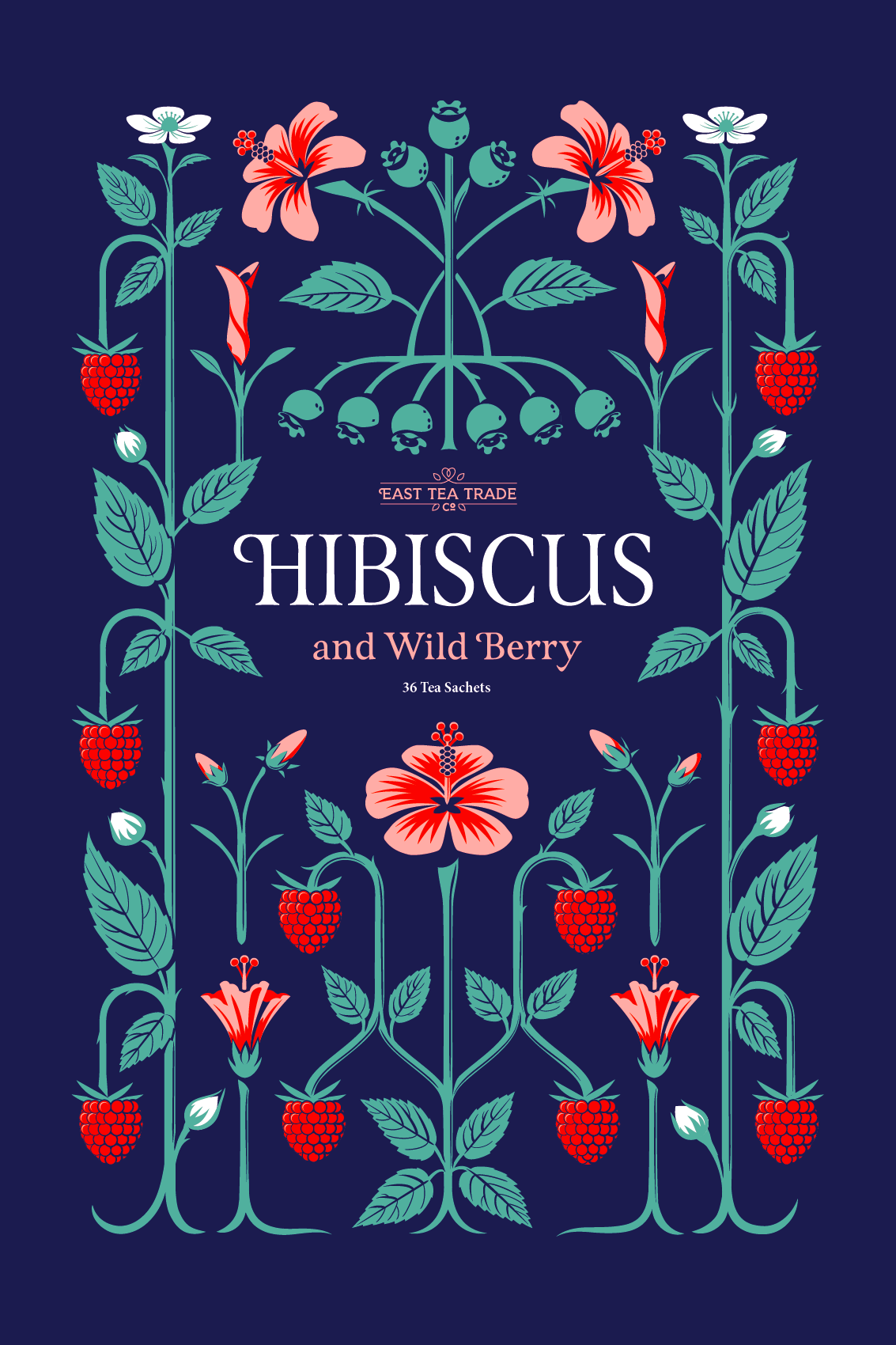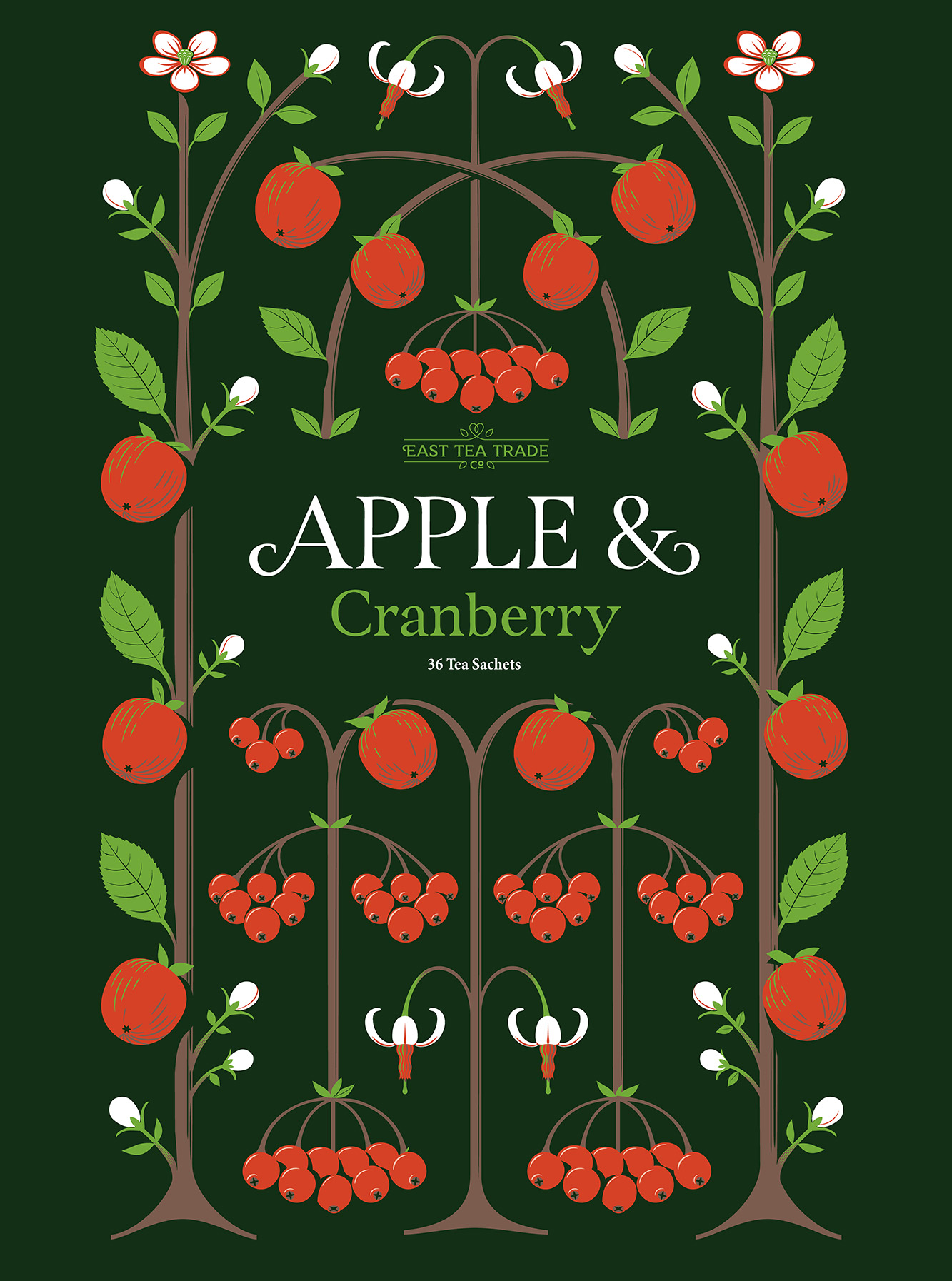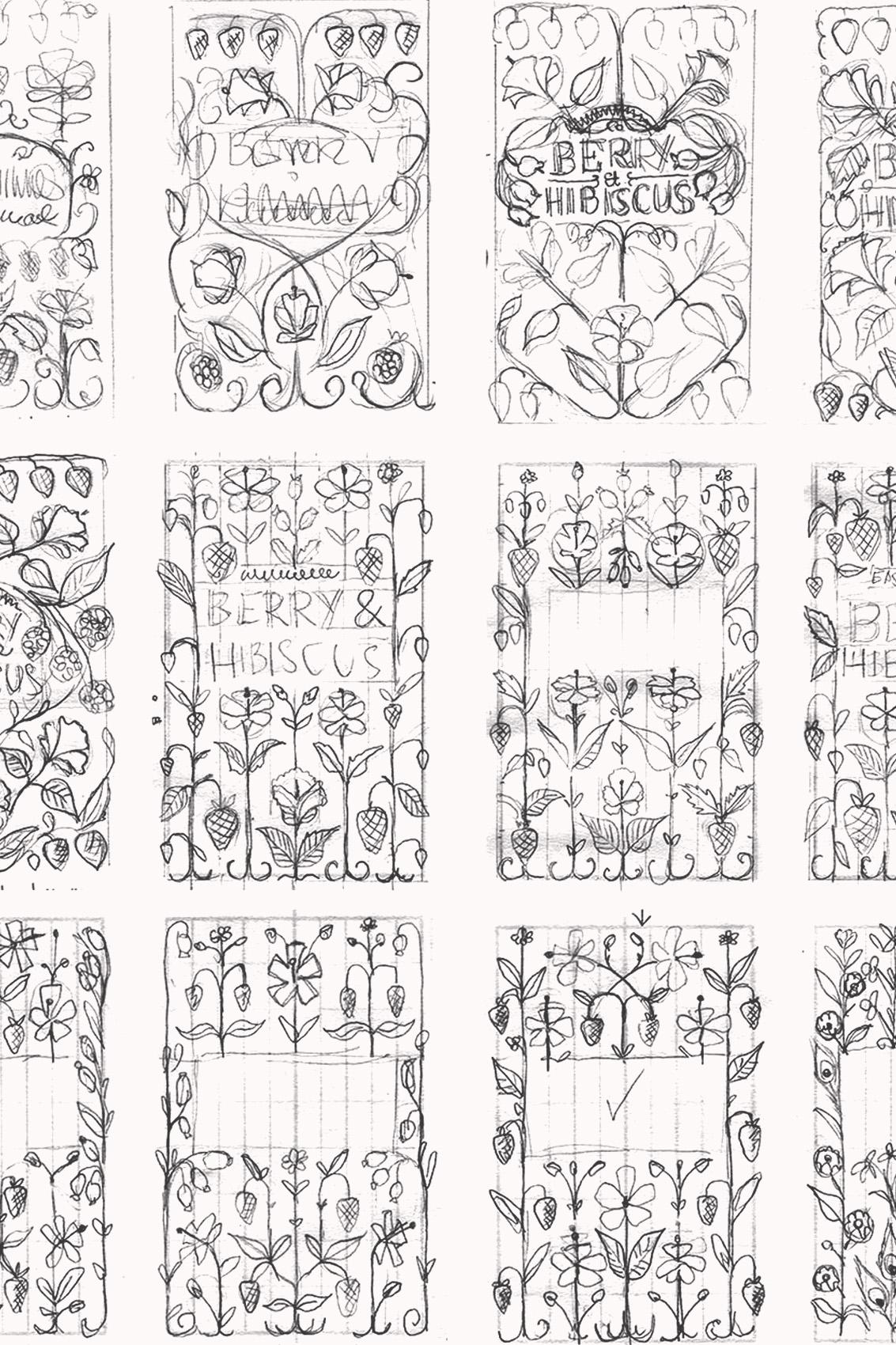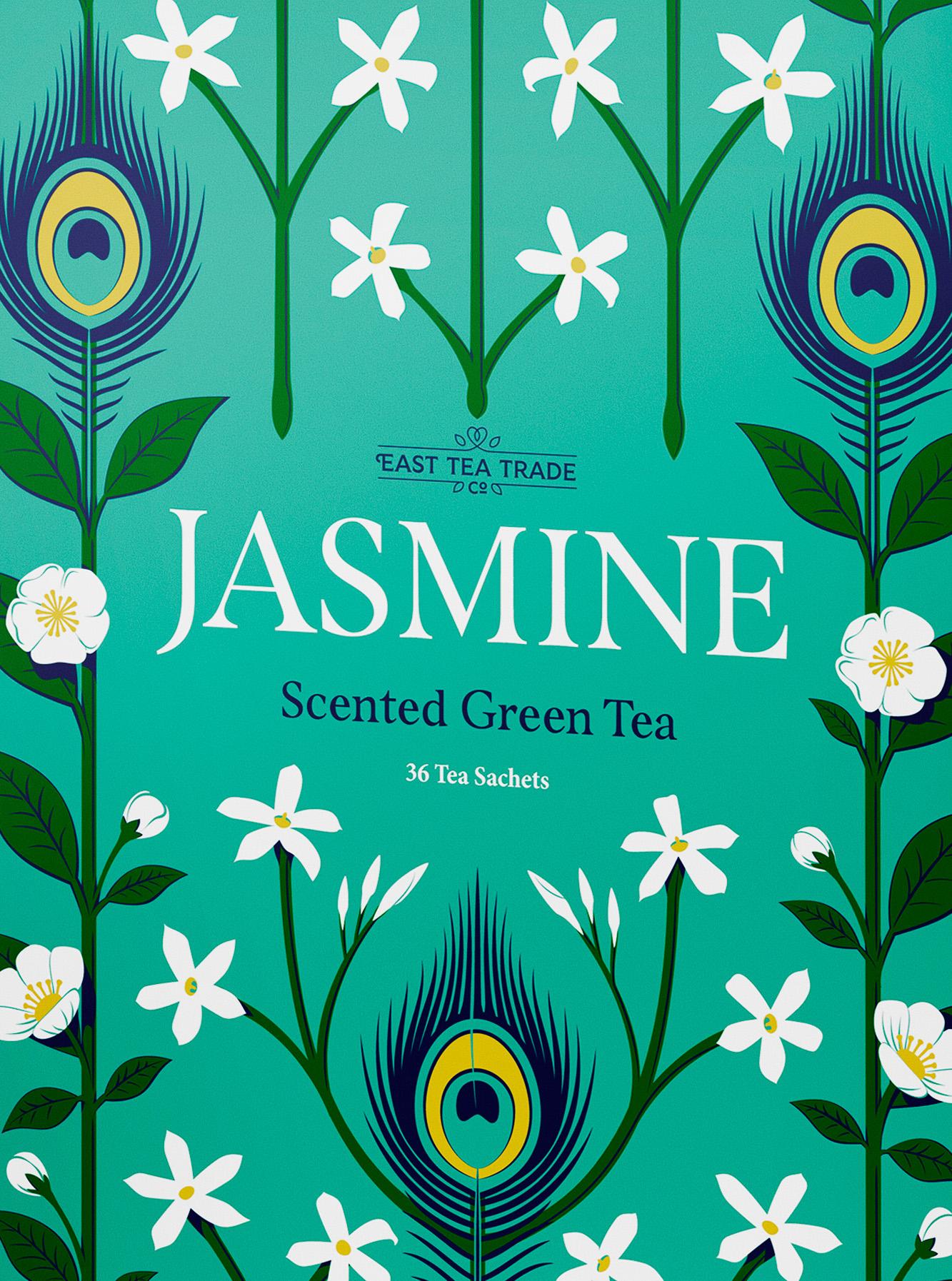
Over a cup of strong tea…
My lettering work naturally gravitates towards a more illustrative approach. I like to surround the text with related imagery or to enclose pictures within words. For this studio project, I chose to explore a design where lettering takes a backseat, allowing the illustrations to become the focus.
I read that tea drinking is in decline in England and, as someone fuelled by tea rather than coffee, I decided to show solidarity with my beverage of choice. I usually drink black tea, however, I discovered that the fruitier blends offered more scope for creativity than my usual English breakfast brews.
When combining illustrations with lettering, I like the imagery to adhere to a simple pattern, usually involving some symmetry. William Morris advised that “structure is a wall against vagueness” and with this in mind, I began by creating an underlying grid layout, over which to position the illustration.
The principles that I normally apply to my type design— rhythm, uniformity, scale and clarity - all play their part. Indeed, most of the imagery for this packaging project was drawn using the same processes and tools as when I'm designing type.
For the Hibiscus and Wild Berry option, my chosen layout allowed me to work four different stages of Hibiscus flower development into the design, from bud to fully open flower.
In my final design, I’ve sought to simplify shapes and to avoid the curls and swirls, or ‘over-abundant embellishments’ as described in Steven Heller’s article, Cult of the squiggly. The lettering follows the classic Roman style but with steep bracketed serifs to emphasise the vertical flow of the designs.
The lettering I drew for the titles inspired my typeface Span which follows the heavy, glyphic serifs, high contrast, and engraved style of the letters.
This is the final design for the Apple & Cranberry option. The cranberry flowers have a beautifully distinct shape which worked well with the limited colour palette.
Original thumbnail sketches exploring various compositions.
My original sketch for the Apple & Cranberry pattern. In the background, you can make out the underlying grid.